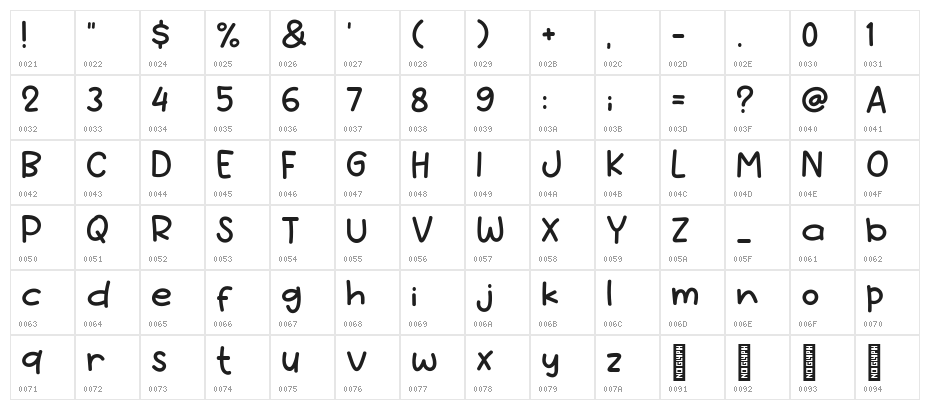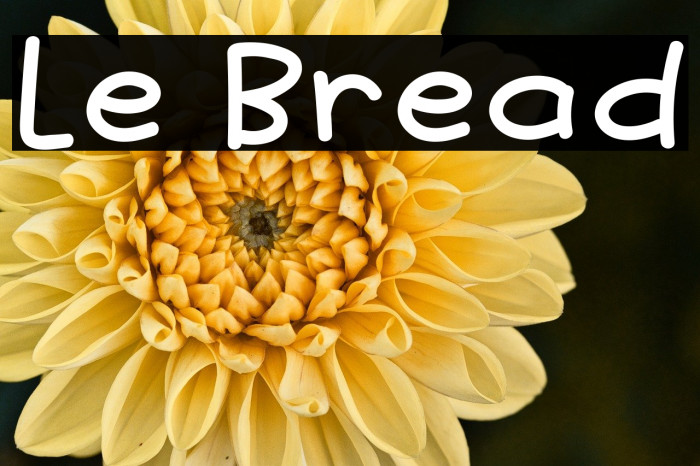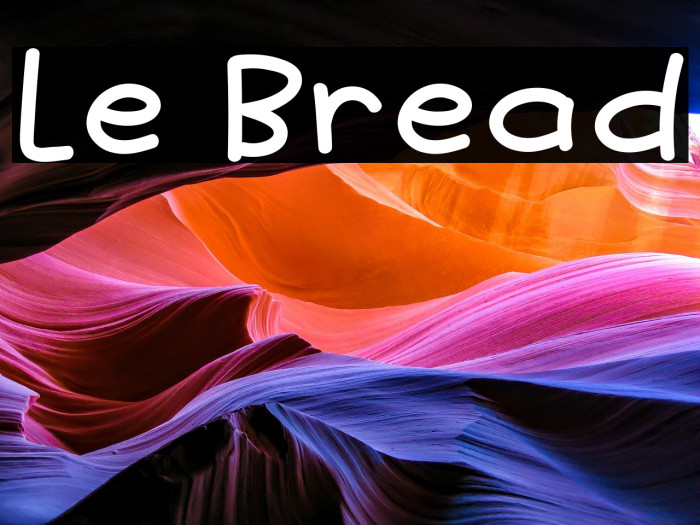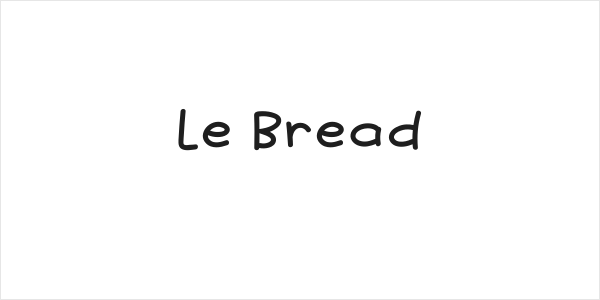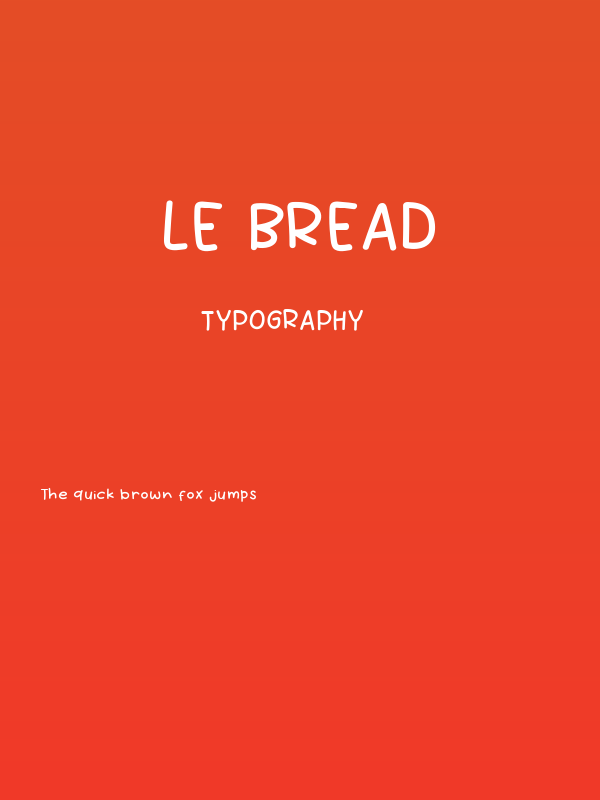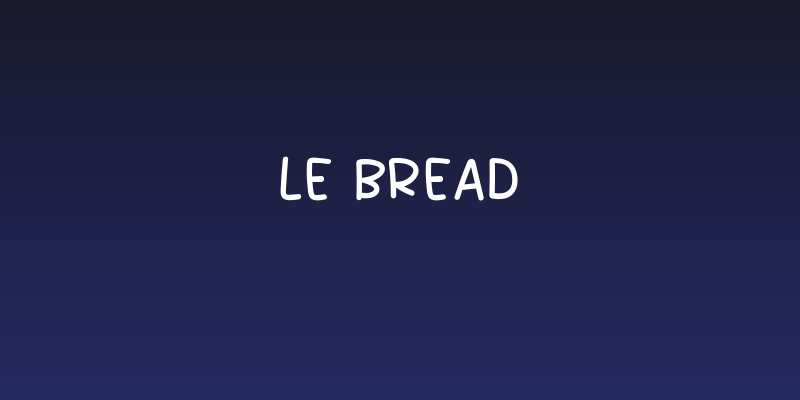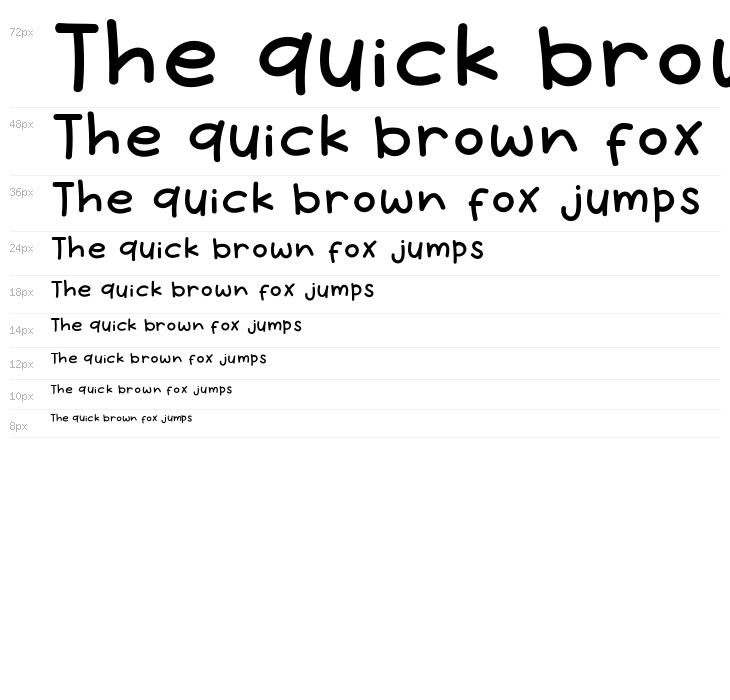
Le Bread Font
Le Bread Description
This playful and rounded font exudes a friendly and approachable vibe, making it ideal for casual and informal designs. The characters are bold and slightly irregular, giving them a hand-drawn appearance that adds a touch of whimsy. The uppercase and lowercase letters are well-balanced, with a consistent stroke width that maintains readability. The numerals and special characters are designed to match the overall style, ensuring a cohesive look across all text elements. This font is perfect for projects that require a fun and lighthearted touch.
| Overall Style | Playful |
| Use Case | Headlines, Logos, Informal Text |
| Proposed Projects | Ideal for children's books, greeting cards, playful branding, and social media graphics. |